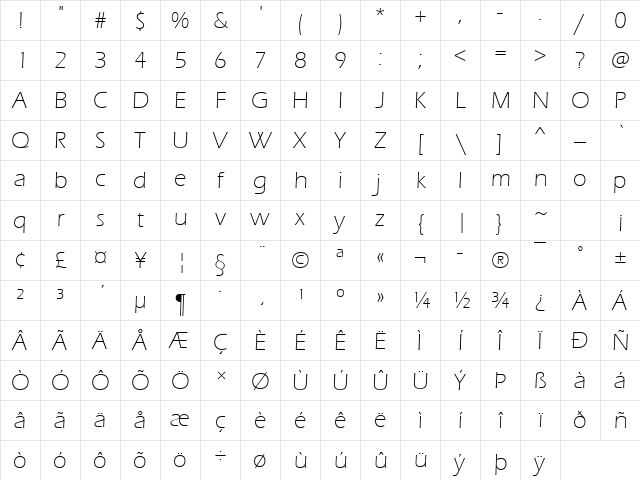
Eras Light ITC Regular
Complete Eras Light ITC Regular glyph index. Displaying only characters natively supported by Eras Light ITC Regular font.
Design Context for Eras Light ITC
Eras Light ITC is a composed and adaptable typeface that performs quietly and consistently across a wide range of design contexts. Its slender proportions lend an understated elegance to any composition.